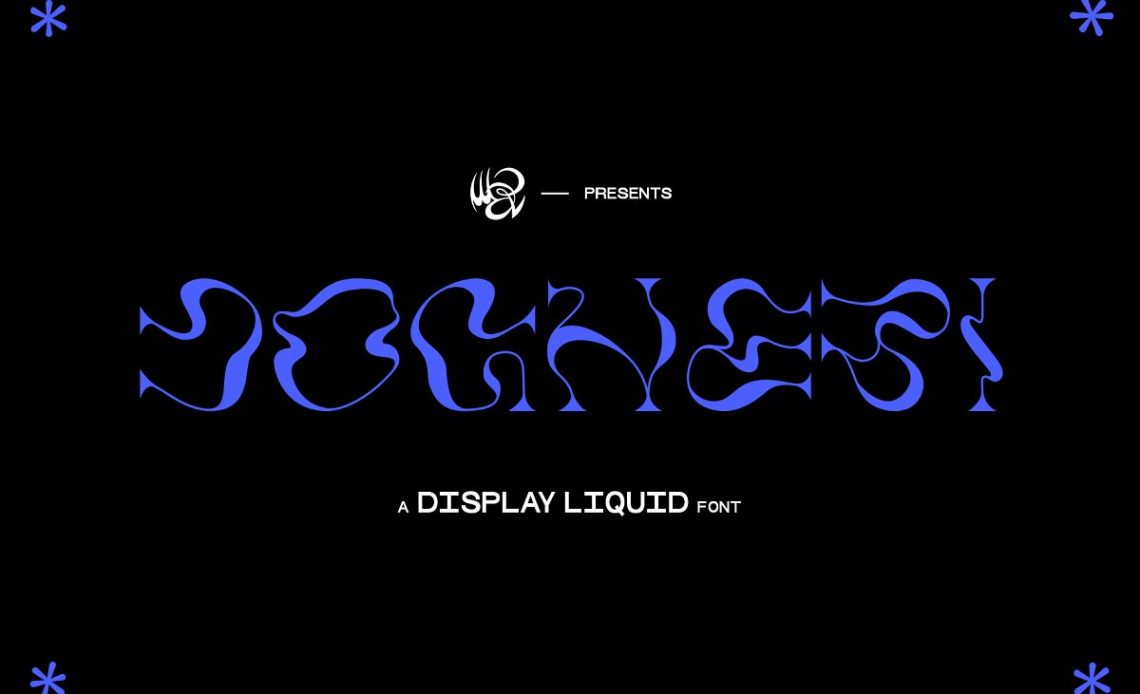
Introducing DOGHEBI, the perfect display liquid typeface designed for bold letters that will take your artwork to the next level! Created by renowned designer Marcello Della Puppa, this monospaced font family has everything you need to make a statement with your designs.
With all 26 characters, numbers, and essential marks, DOGHEBI is versatile and works perfectly for creating big titles and headlines. Whether you're designing a poster, merchandise, or any artwork, this font will help you create captivating and eye-catching designs that stand out from the crowd.
DOGHEBI is not just another serif font. It combines various styles, including serif characteristics, strong lines, and thinner ones, making it sinuous in every curve. This uniqueness makes it the perfect choice for designers looking to add a touch of creativity to their work.
What's more, DOGHEBI offers endless possibilities for creating great combinations that will elevate your design. You can mix and match different styles to create truly unique designs that are sure to leave a lasting impression.
The only thing to keep in mind is to avoid using DOGHEBI for writing in really small sizes, as it may become hard to read. But that's not what this font was created for. It's designed to help you make a bold statement and leave a lasting impression.